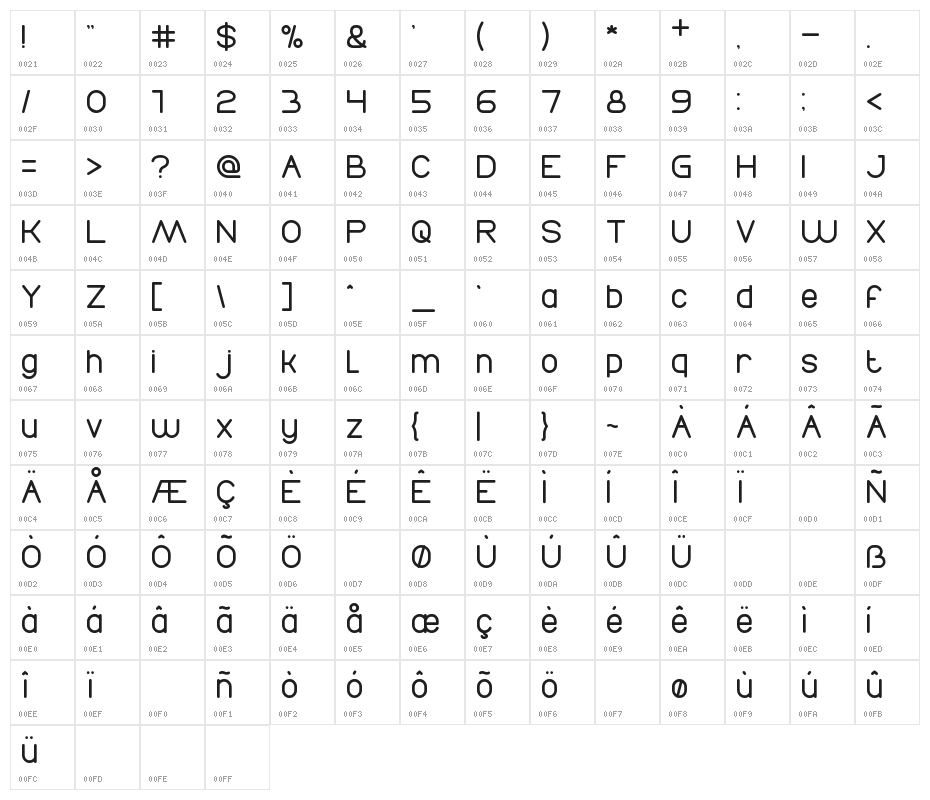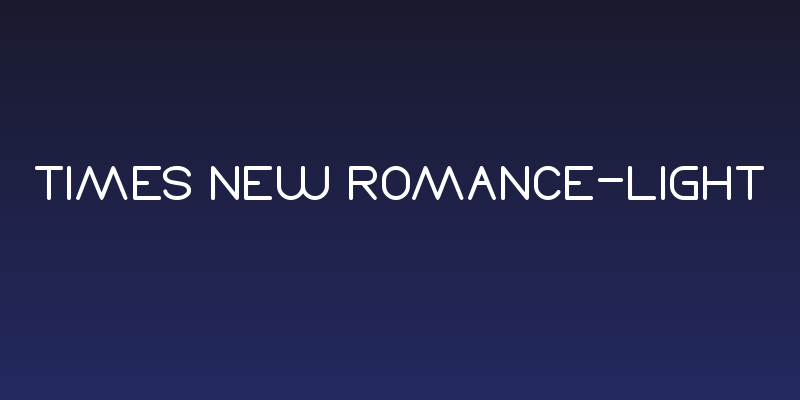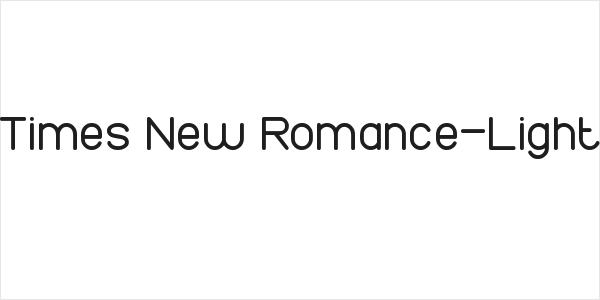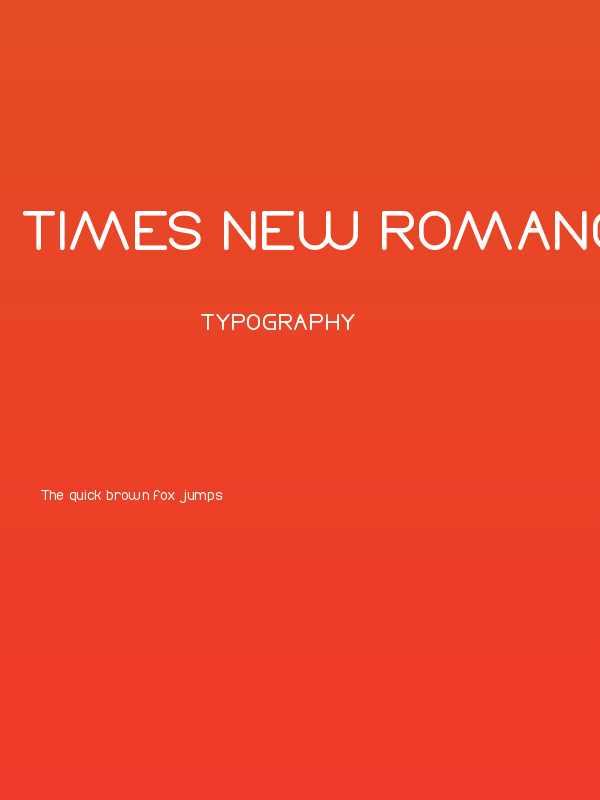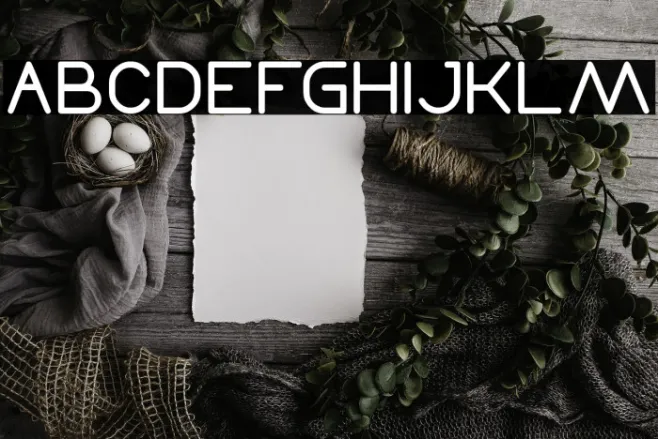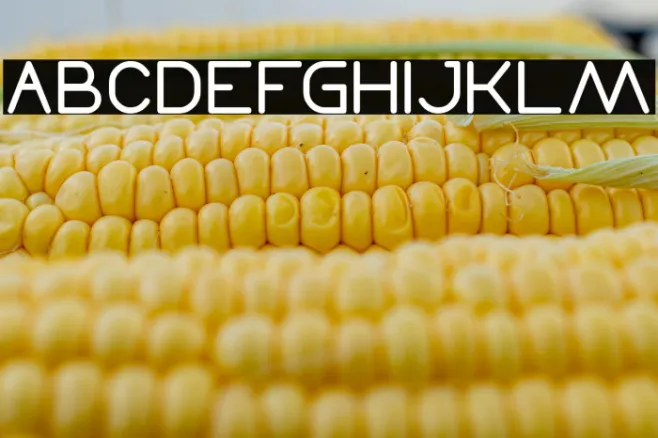
Times New Romance-Light Font
Times New Romance-Light Description
This font features a clean and modern sans-serif style with rounded edges, giving it a friendly and approachable appearance. The uniform stroke width and geometric shapes contribute to its contemporary look. The characters are well-proportioned, with a consistent height and width that enhance readability. The font maintains a balanced and harmonious appearance, making it suitable for various design applications. Its simplicity and clarity make it versatile for both digital and print media.
| Proposed Projects | Ideal for branding, web design, user interfaces, and advertising materials. |